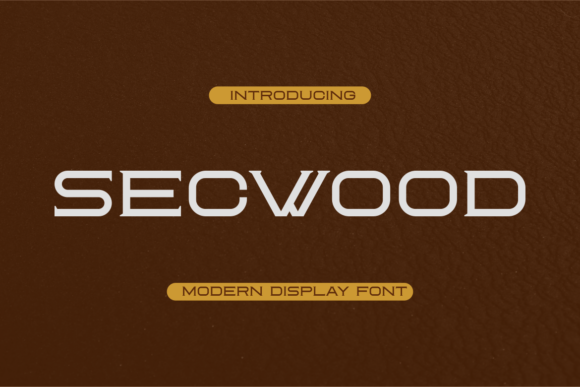
Welcome to the world of Secwood Font, a display font that dances between modernity and whimsy. Created by the brilliant brahamb78, this font is a ticket to unleashing your creativity and taking your designs to new heights!
With its unique and charming style, Secwood Font weaves a spell that's hard to resist. It's a visual masterpiece that captivates audiences, leaving them enchanted by its allure. Experience the beauty of this display font, crafted with meticulous attention to detail, adding a touch of elegance and sophistication to every letterform.
Secwood Font's versatility knows no bounds. Whether you're a seasoned designer or just starting, this font family invites you to explore a world of possibilities. Dive into the realm of typography and let your imagination soar. From headlines that command attention to text that flows with grace, Secwood Font is your perfect companion.
Visualize your words taking on a new life, adorned with the charm and charisma of Secwood Font. Let your creativity take center stage as this font transforms your designs into captivating masterpieces. Embrace the power of aesthetics and create visual wonders that will leave an unforgettable impression.